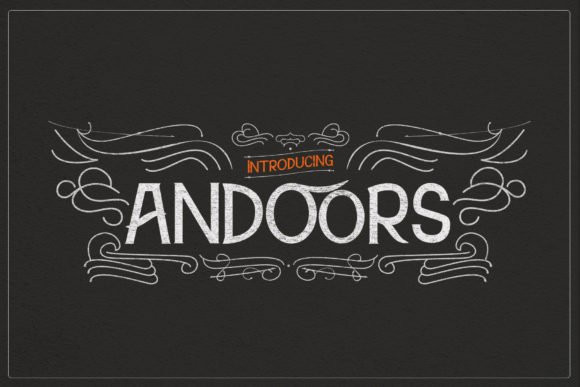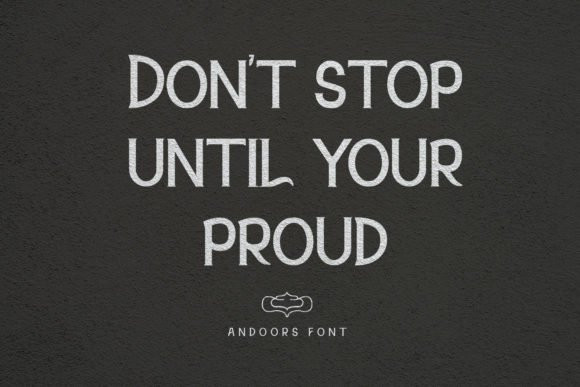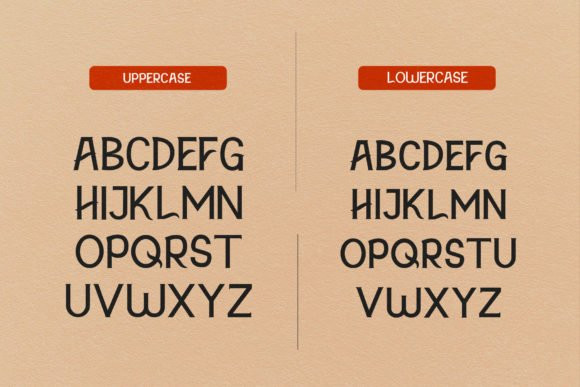
Andoors Font
Andoors FontAndoors is a cool, indie styled, vintage display font. It is PUA encoded which means you can access all of the glyphs and swashes with ease!